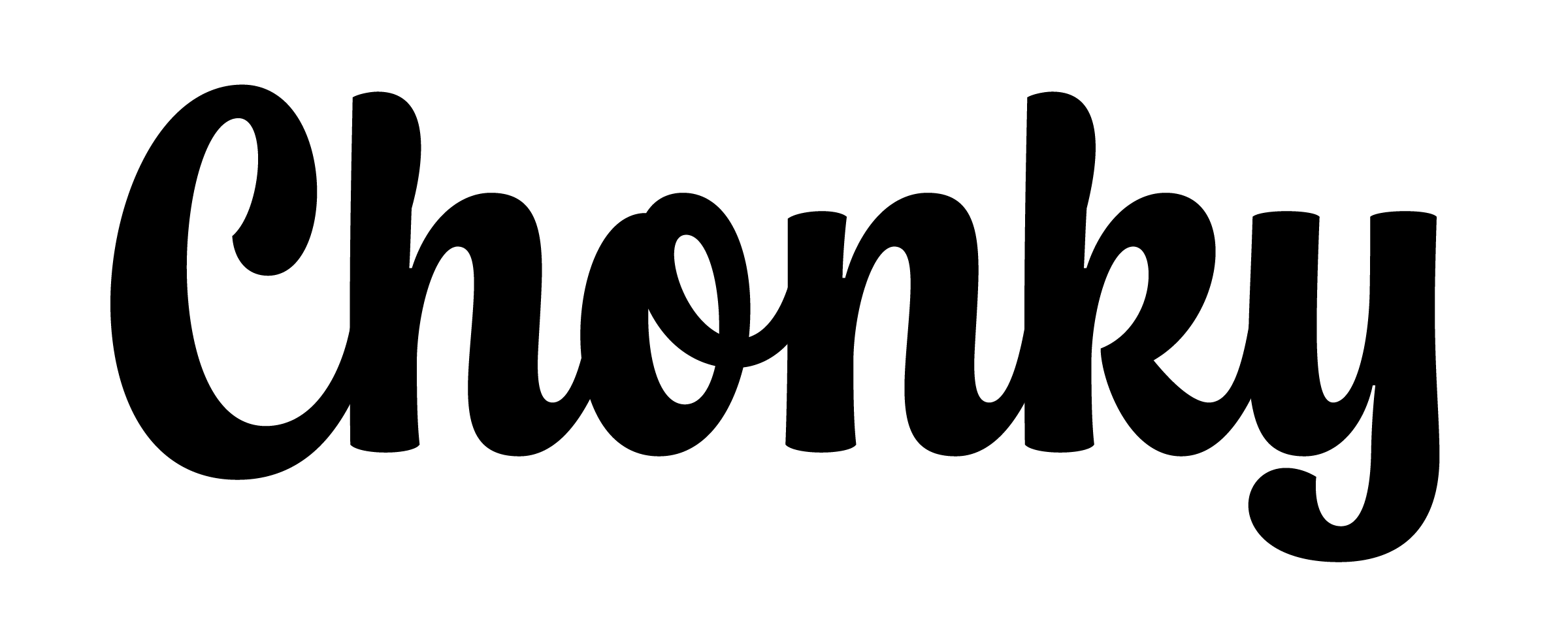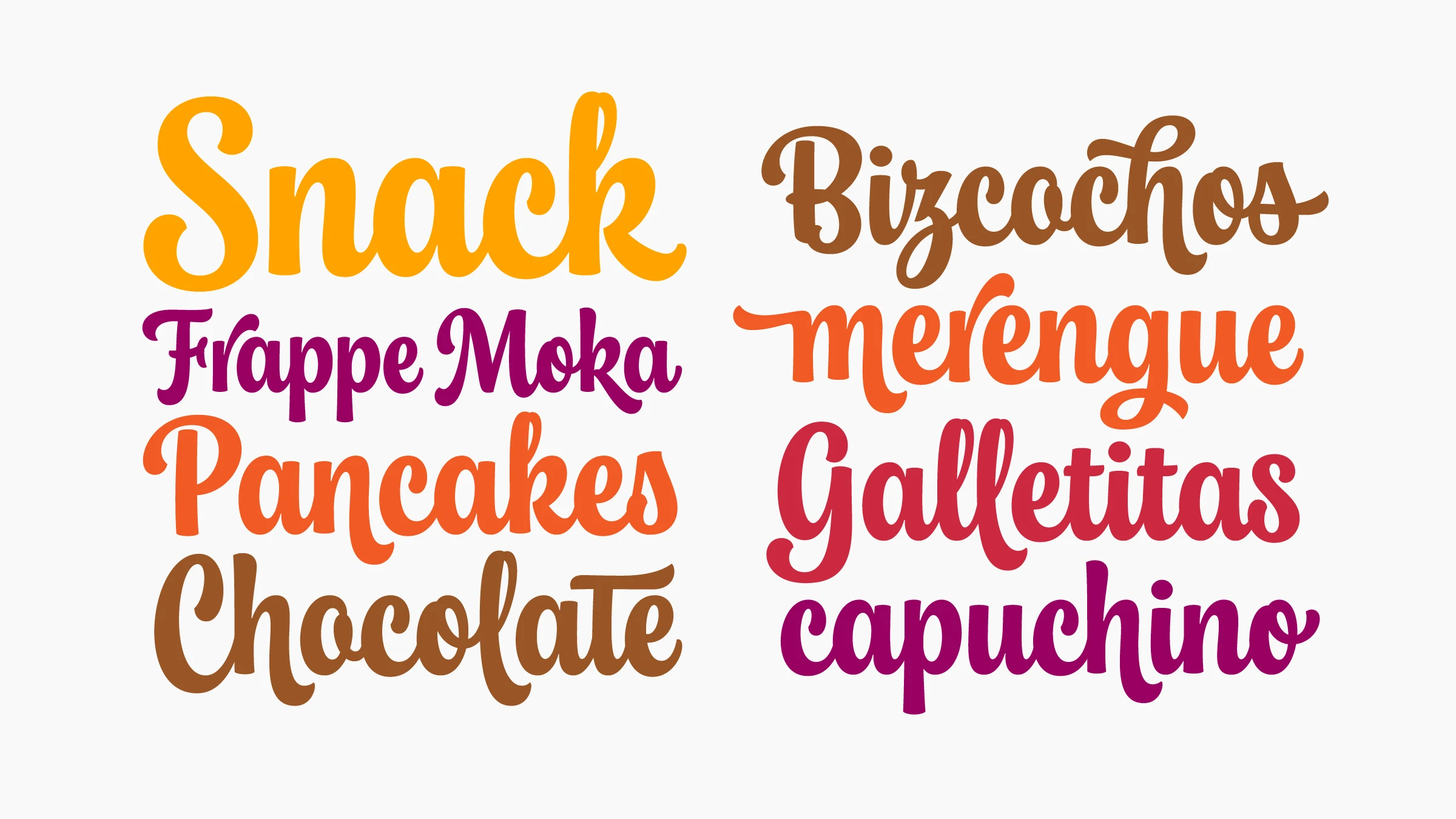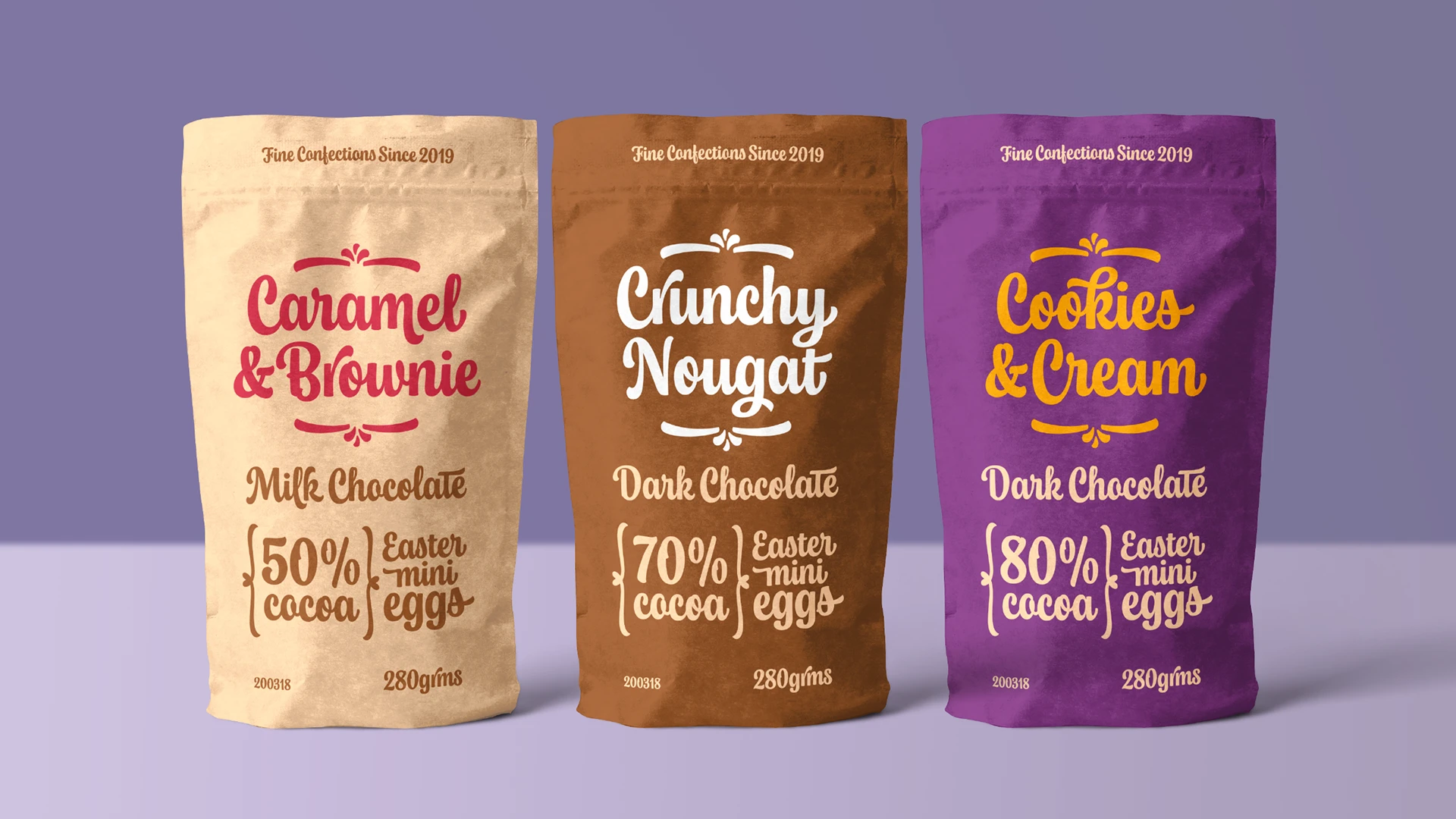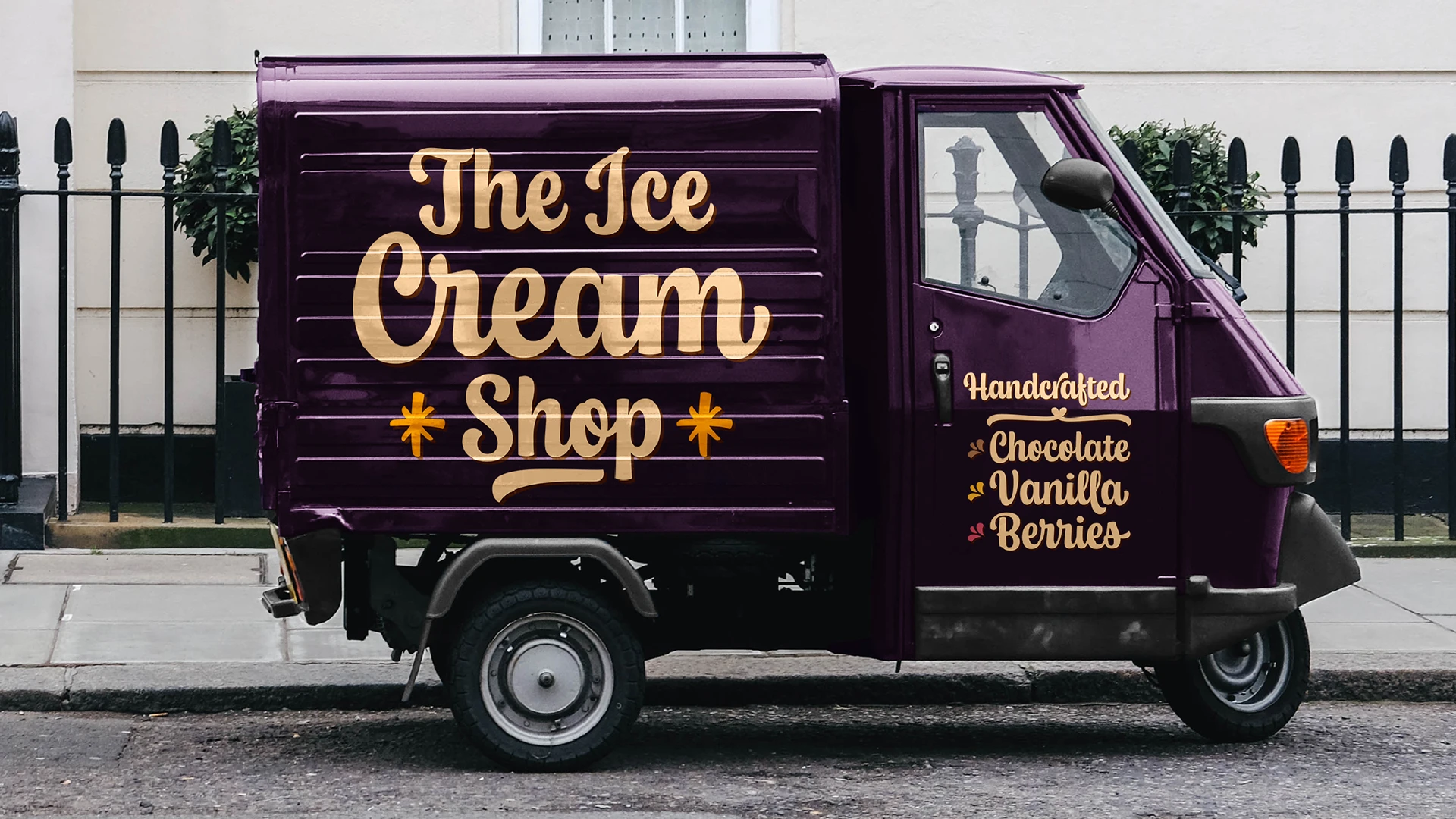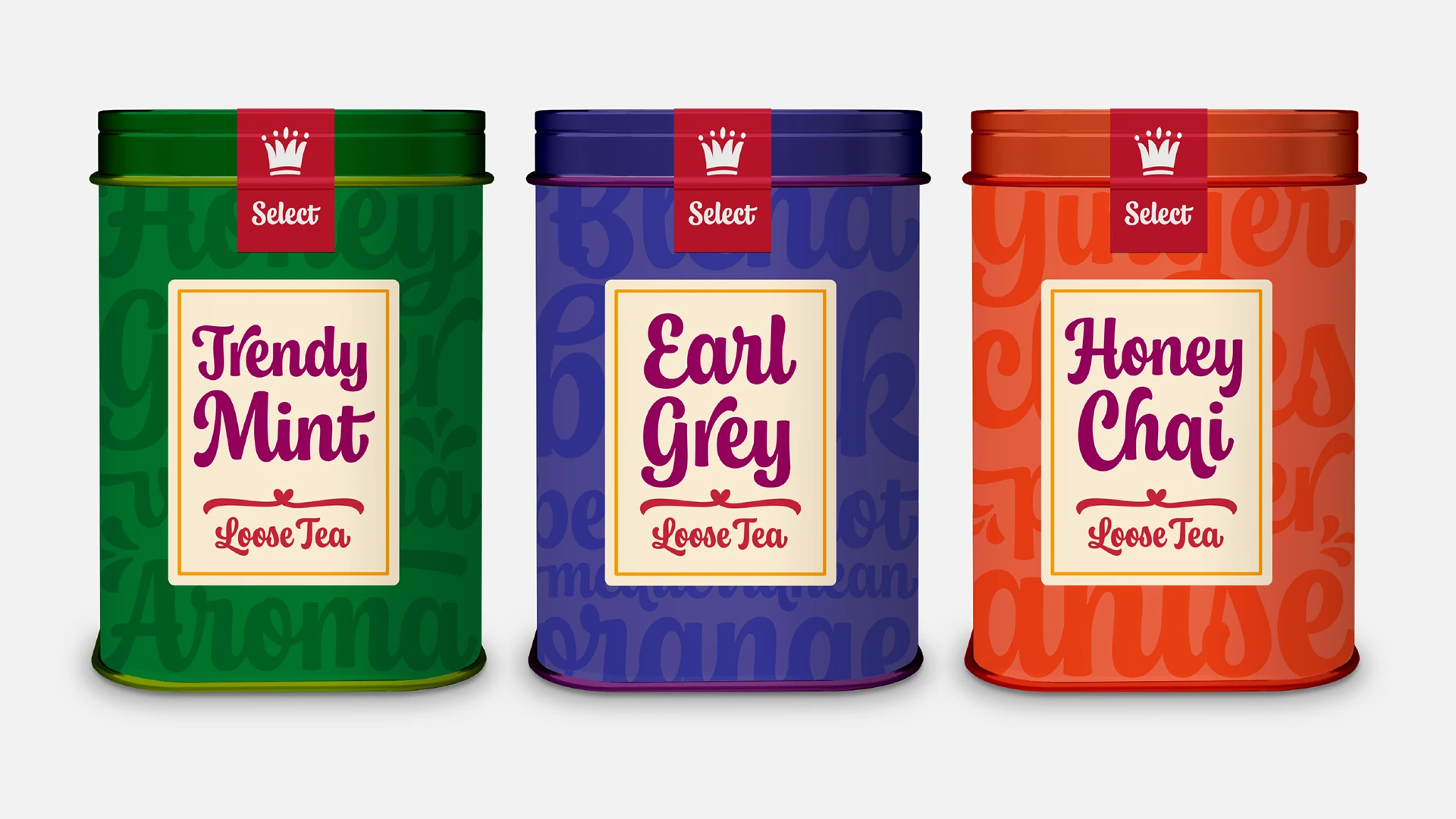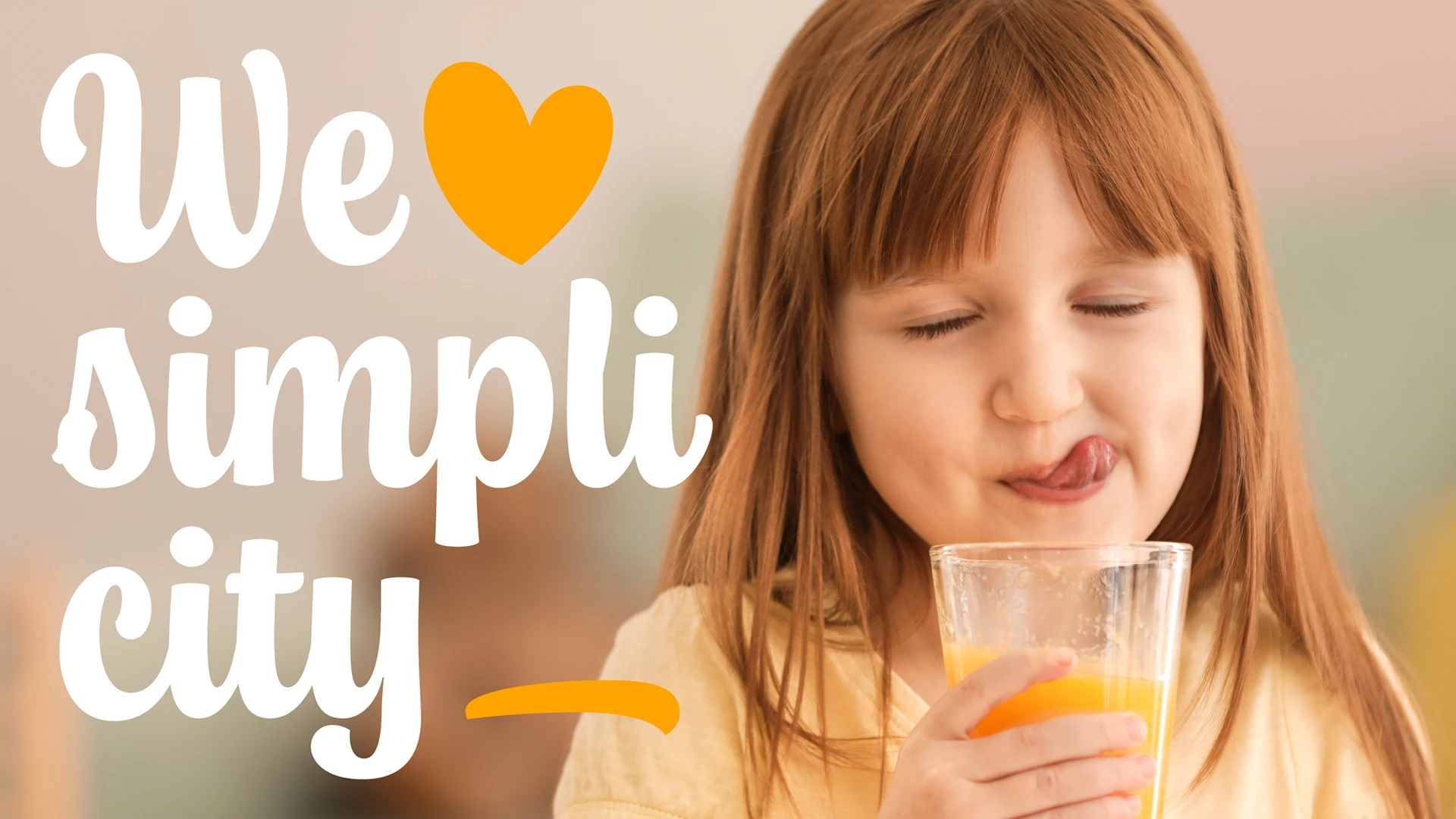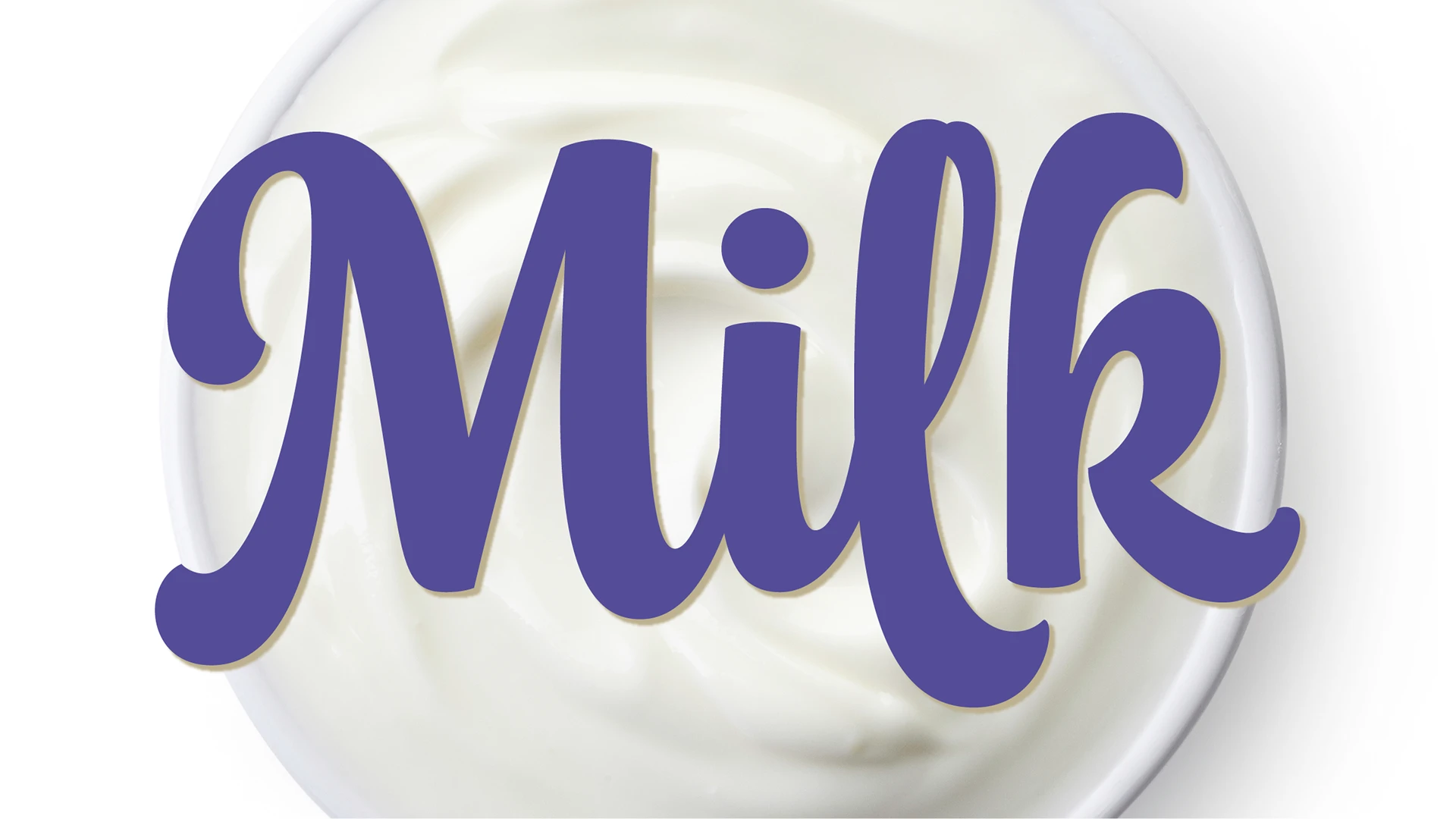
Chonky Font Family
Chonky is a bold script font based on English calligraphy but with touches of the vitality that the commercial lettering of 1950s had, and it is mostly inspired in the work of the master Doyald Young and his lessons. Its rounded terminals, friendly look and heavy weight make Chonky a perfect option for advertising, packaging and visual identities.
Chonky font by Typesenses — the words “Snack”, “Frappe Moka”, “Pancakes”, “Chocolate”, “Bizcochos”, “merengue”, “Galletitas”, and “capuchino” in a connected script, with each word or phrase in a different color.
Chonky font by Typesenses — three upright script wordmarks “Caramel & Brownie”, “Crunchy Nougat”, and “Cookies & Cream” with decorative flourishes, each above smaller upright script text “Milk Chocolate” or “Dark Chocolate” and other product details.
Chonky font by Typesenses — the words “The Ice Cream Shop” in a bold, connected script with two four-pointed starbursts, and “Handcrafted Chocolate Vanilla Berries” in a smaller script with small leaf and berry icons
Chonky font by Typesenses — three tea tins with script lettering on labels reading “Trendy Mint”, “Earl Grey”, and “Honey Chai”, each with “Loose Tea” below a small heart icon, and a crown icon above the word “Select” on a red band at the top
Chonky font by Typesenses — the words “We simplicity” in a connected script, with an orange heart icon replacing the word “love” and an orange underline below “city”
Chonky font by Typesenses — the word “Milk” in a bold, connected script, set against a creamy white background.